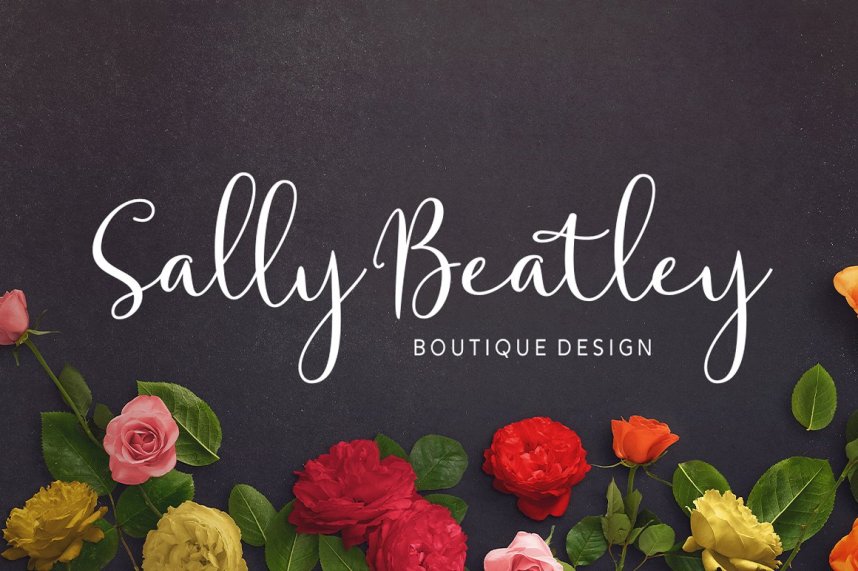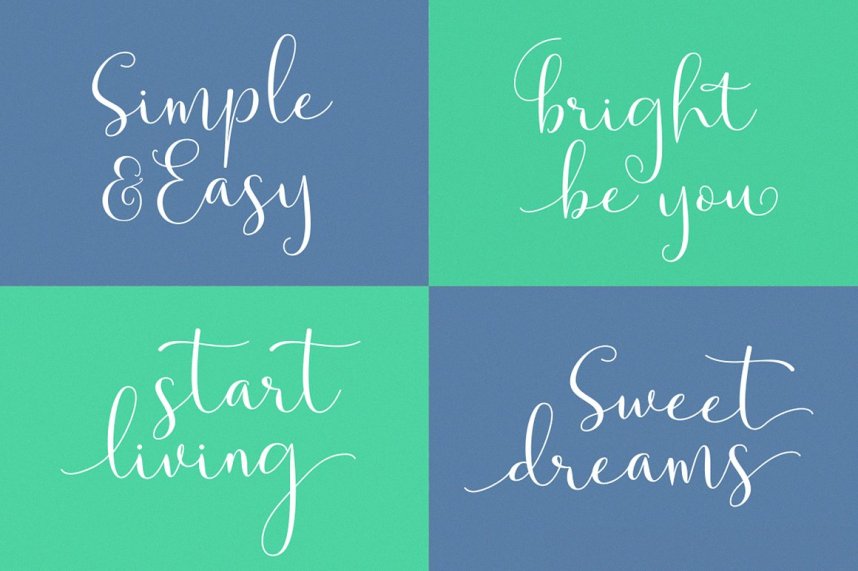
Solidar Script Font – Free Demo
Wonderfulness, it’s modern script font family, created by Solidtype. Introducing Solidar Font. With elegant touch, casual and lovely. It comes with a handy set of opentype stylistic, use the beautiful ligatures, alternates and swashes. It is perfect for logo, greetings, branding, quotes, prints, invitations and crafting. All lowercase letters include alternates, beginning & end swashes, that makes the font look fabulous!